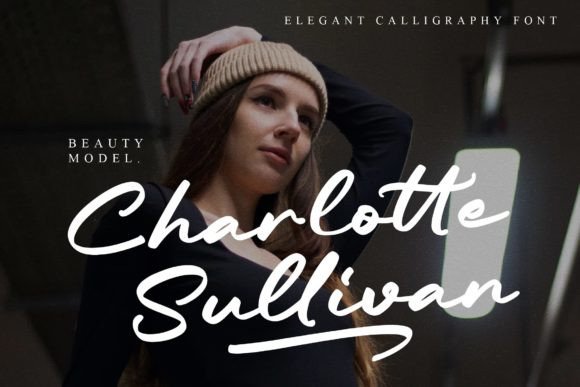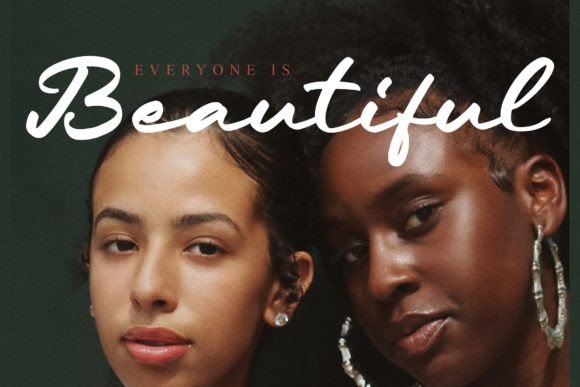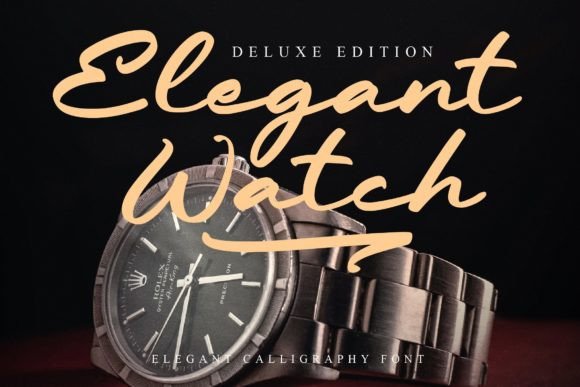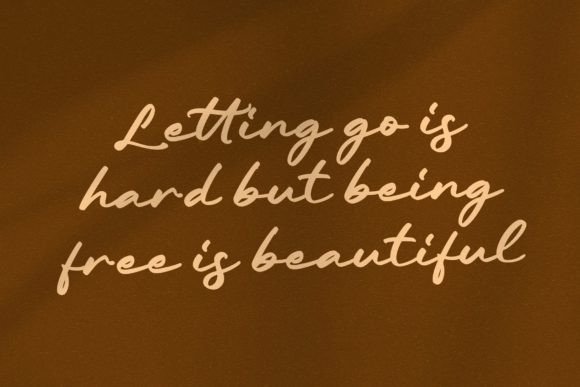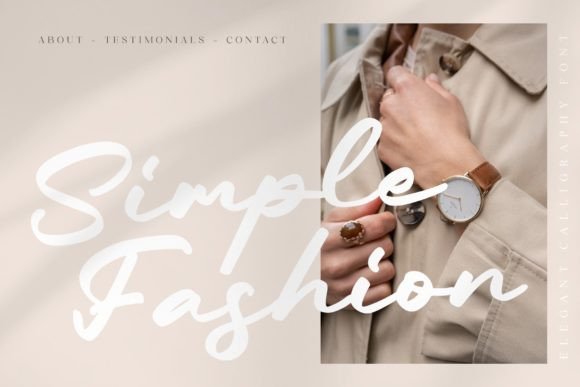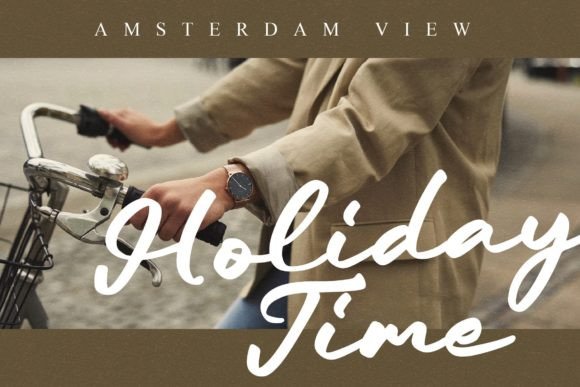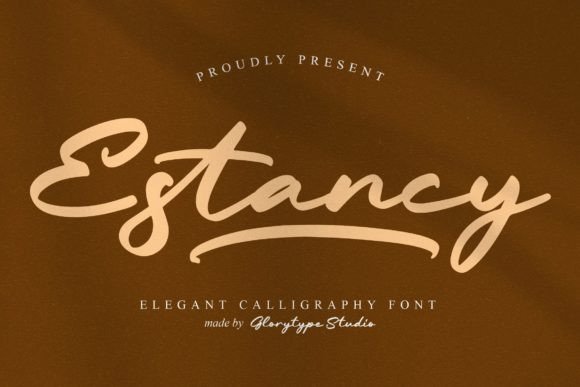
Introducing Estancy Font: Elevate Your Designs with Elegant Calligraphy
In the world of design, fonts play a crucial role in conveying the tone and aesthetic of a project. For those seeking to add a touch of elegance and sophistication, the Estancy Font is an excellent choice. This beautiful calligraphy font is perfect for a wide range of applications, from logos and branding to packaging, posters, and more.
What is Estancy Font?
Estancy is a meticulously crafted calligraphy font, designed to bring a sense of luxury and refinement to any project. Its elegant strokes and fluid connections make it ideal for designs that require a personal touch. Whether you’re working on a logo, a poster, or a product label, Estancy Font is sure to impress.
Key Features of Estancy Font
- Elegant Calligraphy: Estancy boasts beautiful, flowing script that adds a touch of sophistication to any design.
- Versatile: Suitable for a wide range of projects, including logos, branding, homeware designs, product packaging, and more.
- Easy to Read: Despite its elegant nature, Estancy remains clear and easy to read, making it perfect for both headlines and body text.
- Unique Style: Its distinctive calligraphy style ensures that your designs stand out from the crowd.
Use Cases for Estancy Font
The versatility of Estancy Font makes it suitable for numerous applications. Here are some ideas to get you started:
- Logos and Branding: Create a lasting impression with a logo that exudes elegance and professionalism.
- Homeware Designs: Add a touch of luxury to your homeware designs, from mugs and t-shirts to wall art and decorative items.
- Product Packaging: Elevate your product packaging with a font that communicates quality and sophistication.
- Posters and Quotes: Make your posters and quotes stand out with a beautiful, eye-catching script.
- Book Covers and Name Cards: Give your book covers and name cards a professional edge with Estancy’s elegant calligraphy.
- Invitation and Greeting Cards: Impress your guests or loved ones with beautifully designed cards.
- Labels and Watermarks: Use Estancy for labels and watermarks to add a subtle yet sophisticated touch to your products or photographs.
Why Choose Estancy Font?
In a market flooded with generic fonts, Estancy offers a breath of fresh air. Its unique calligraphy style not only adds an element of elegance to your designs but also helps in creating a strong brand identity. Here are a few reasons why designers and crafters prefer Estancy:
- Unique Designs: Estancy’s distinctive style ensures your projects look bespoke and high-end.
- Time-Saving: With Estancy, you can achieve professional-looking results without spending hours on custom calligraphy.
- Support for Various Projects: From digital designs to print materials, Estancy adapts seamlessly across different mediums.
Tips for Using Estancy Font Effectively
To maximize the impact of Estancy Font in your designs, consider the following tips:
- Pair with Simplicity: Let Estancy be the focal point by pairing it with simpler fonts for body text or secondary information.
- Experiment with Colors: While Estancy looks stunning in black or dark colors, don’t be afraid to experiment with gold, pastels, or other hues to match your brand’s palette.
- Adjust Size and Weight: Play around with different sizes and weights of Estancy to create visual hierarchy and add depth to your designs.
Estancy Font is more than just a calligraphy font; it’s a tool to transform your designs, adding a layer of elegance and sophistication that resonates with audiences. Whether you’re a professional designer or a crafter, Estancy offers the versatility and beauty to bring your projects to life. Explore the possibilities with Estancy Font today and discover how it can elevate your creative work.